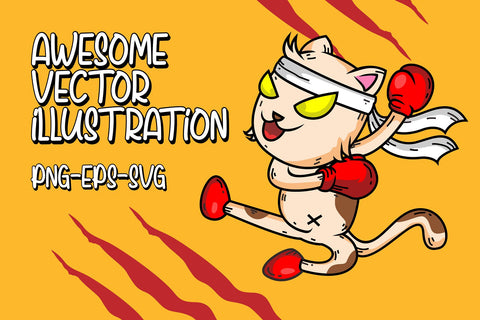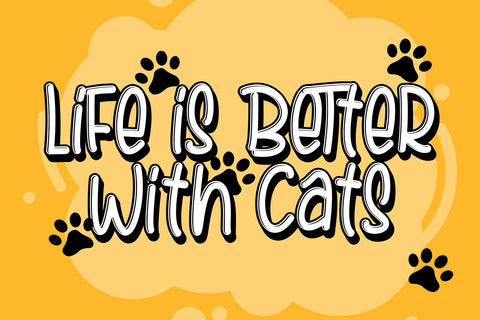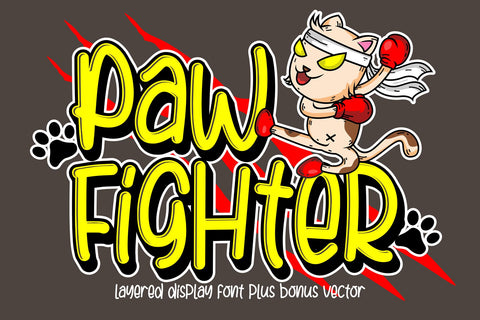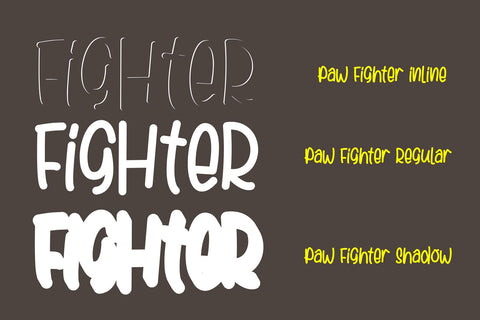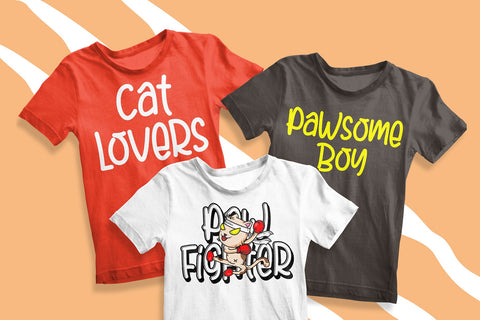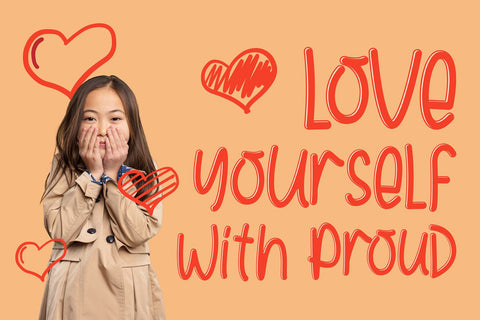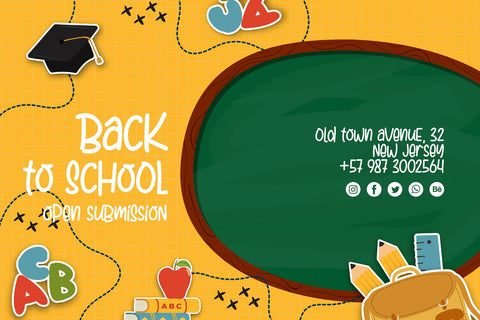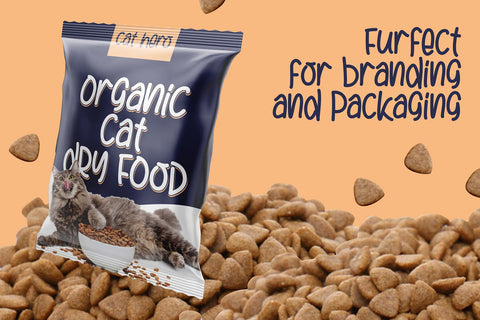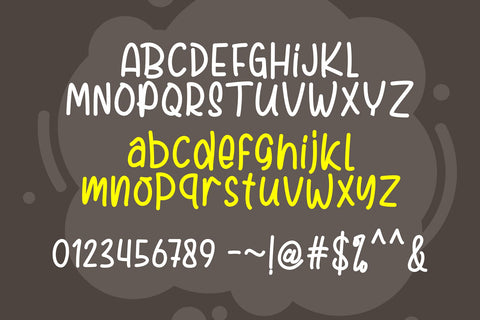
Paw Fighter - Layered Display Font
Paw Fighter is a layered font inspired by the joyful world of colorful children and cats. The unique characteristics of the Paw Fighter and Bonus vector illustration make it very suitable for various purposes such as quotes, t-shirt designs, flyers, YouTube channels, labels, logos, etc.